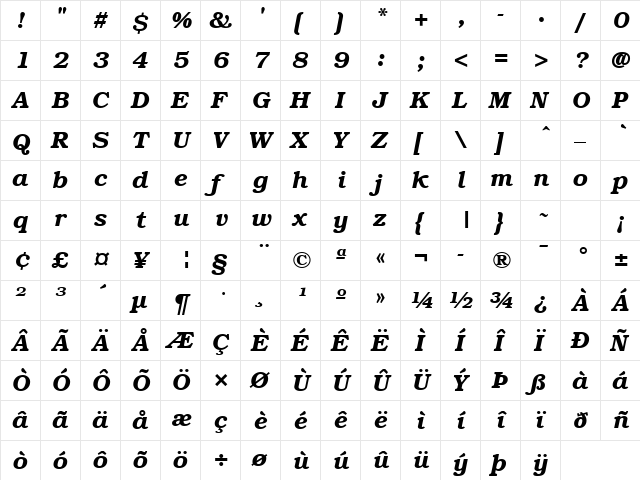
Brussels DemiItalic
Design Context for Brussels Typeface
Brussels is a composed and adaptable typeface that performs quietly and consistently across a wide range of design contexts. The dynamic lean of this cut emphasises speed and emphasis in any layout.
Pro Tip: Try Brussels for annotation and caption copy alongside an upright companion — the contrast in angle creates a dynamic but ordered typographic system.